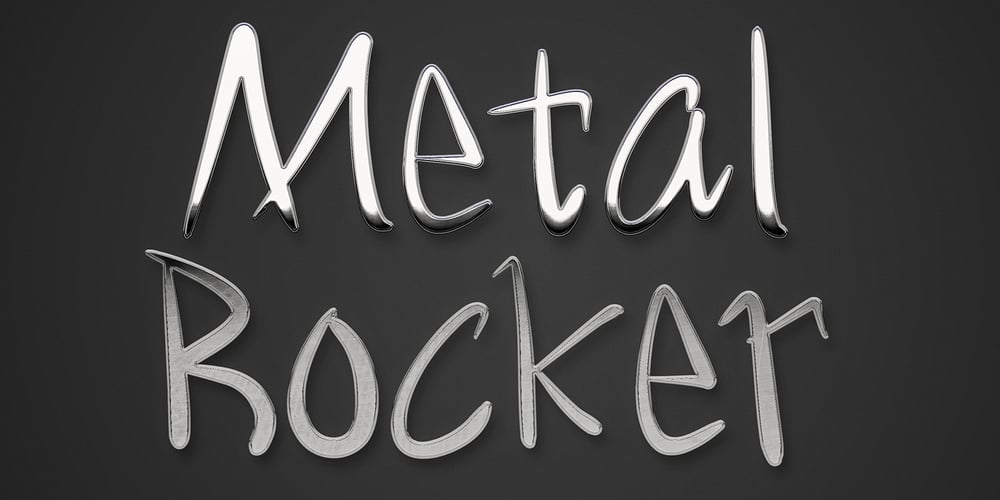
Metal rocker
Metal rocker font
Metal rocker Font Family was designed by Ahmad Afandi and published by Letterafandi Studio. Metal rocker contains 2 styles and family package options. Metal Rocker is a natural handwritten font. It looks stunning on thank you cards, quotes, greeting cards, logos, business cards, and every other design which needs a handwritten touch.